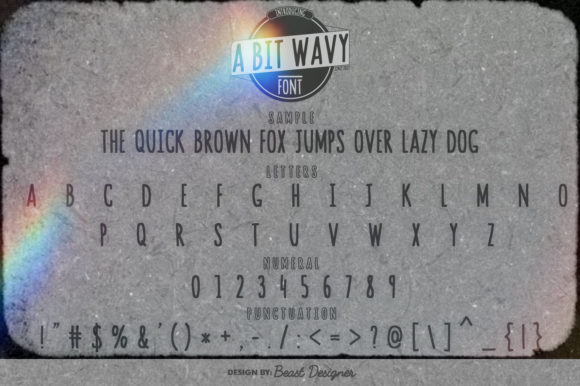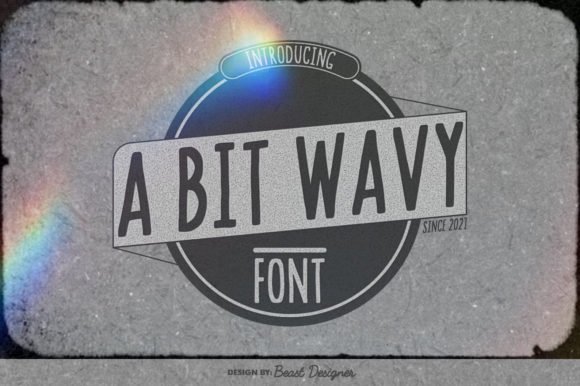
Unlock the Charm of A Bit Wavy Font
Remember that moment when you stumbled upon the perfect font to elevate your design project? The thrill of seeing your words come to life with a font that perfectly captures the essence of your vision? For designers, finding the right font can be a game-changer. It’s the difference between a good design and a great one.
Enter A Bit Wavy Font, a simple yet captivating sans serif font that embodies the charm of a bygone era. This vintage-inspired font is designed to be versatile, making it an excellent addition to a wide range of projects. From advertisements to product labels, and from website headers to social media graphics, A Bit Wavy Font is sure to add a touch of personality to your creative endeavors.
A Bit Wavy Font Key Features
- Font Family: A Bit Wavy Font is a unique, hand-drawn font family with a wavy design aesthetic.
- Character Set: Includes a wide range of characters, including uppercase and lowercase letters, numbers, and punctuation marks.
- Unique Characteristics: Features a distinctive wavy design element that adds a touch of whimsy and personality to text.
A Bit Wavy Font Review
Overall, I think A Bit Wavy Font has some great qualities, but it also has some limitations. Let’s dive into what works well.
- ✨ The font’s wavy feel is unique and eye-catching. It’s perfect for adding some visual interest to your designs.
- ✨ The font is highly customizable. You can adjust the wave size, wave spacing, and even add a stroke to the text.
- ✨ The font is available in a wide range of languages, making it a great choice for international designs.
Now, let’s talk about the limitations.
- ⚠️ The font can be a bit overwhelming if used in large blocks of text. The wavy feel can make it difficult to read.
- ⚠️ The font is not ideal for small text sizes. The waves can become distorted and lose their shape.
- ⚠️ The font is not suitable for formal or professional designs. It’s better suited for creative or playful projects.
Overall, I think A Bit Wavy Font is a great choice for designers who want to add some personality to their designs. However, it’s not a one-size-fits-all solution. Use it wisely and in moderation, and you’ll be sure to create some amazing designs.
A Bit Wavy Font is ideal for creating eye-catching headings and titles. Use it to add a touch of whimsy and personality to your designs.
- Children’s book illustrations and design
Alternatives to A Bit Wavy Font for Designers
Carolyna Pro is a modern script font with a soft, elegant feel. It’s perfect for invitations, wedding stationery, and other formal events where a touch of sophistication is needed.
Compared to A Bit Wavy Font, Carolyna Pro has a more refined and polished look. While A Bit Wavy Font has a more playful, handwritten feel, Carolyna Pro is better suited for formal occasions.
Alex Brush is a beautiful, elegant script font with a classic feel. It’s ideal for branding, logos, and other applications where a touch of sophistication and elegance is required.
Compared to A Bit Wavy Font, Alex Brush has a more refined and structured look. While A Bit Wavy Font has a more casual, handwritten feel, Alex Brush is better suited for formal branding and design.
Pacifico is a beautiful, modern script font with a relaxed, casual feel. It’s perfect for designs that require a touch of elegance and sophistication, such as restaurant menus, product labels, and packaging.
Compared to A Bit Wavy Font, Pacifico has a more refined and elegant look. While A Bit Wavy Font has a more playful, handwritten feel, Pacifico is better suited for designs that require a touch of sophistication and elegance.